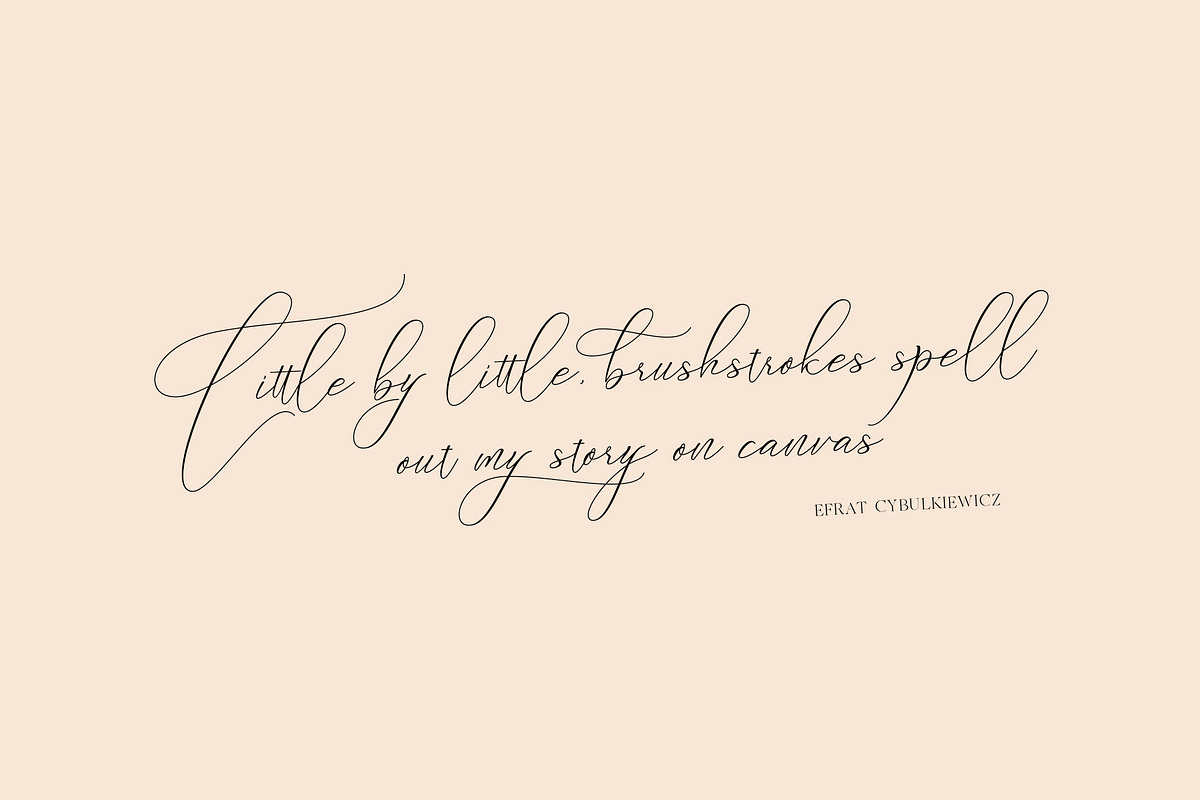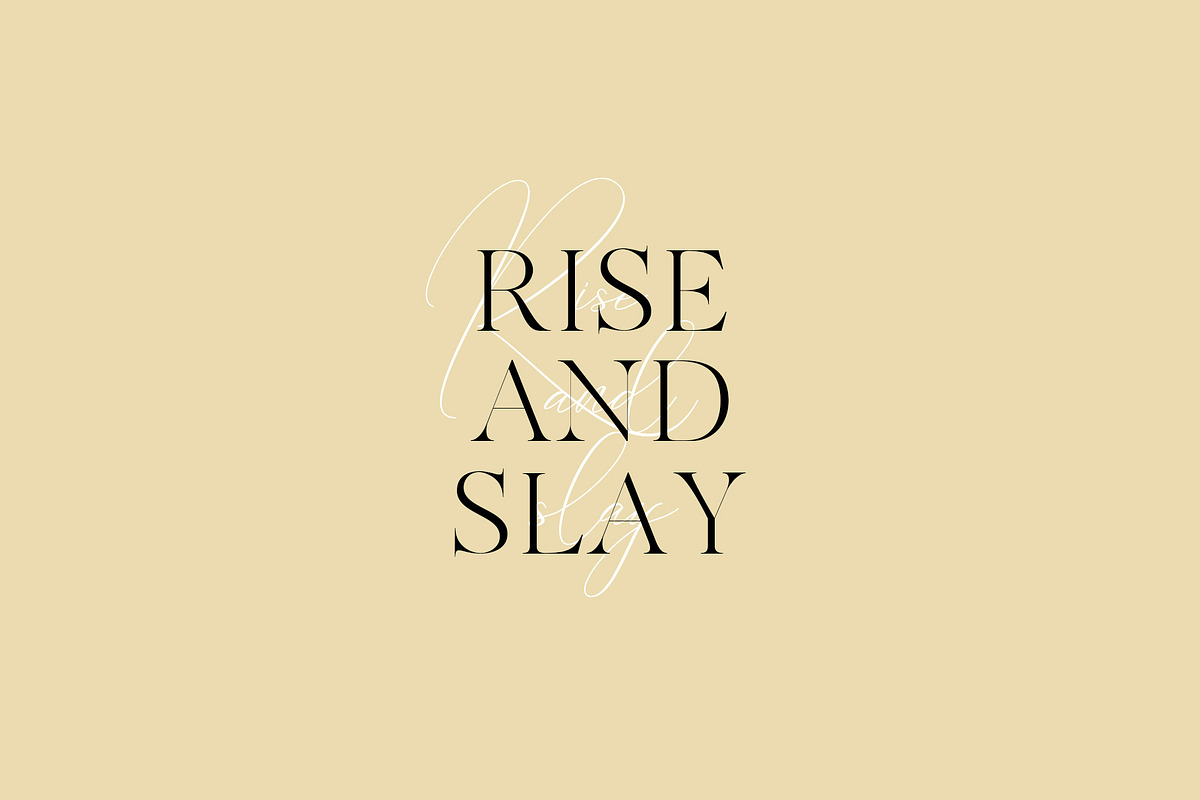
New Washington Script and Serif
New Washington is a font that is designed while maintaining the previous font, style with Modern Elegant Style this is perfect for branding, logos, invitation, masterheads and more.